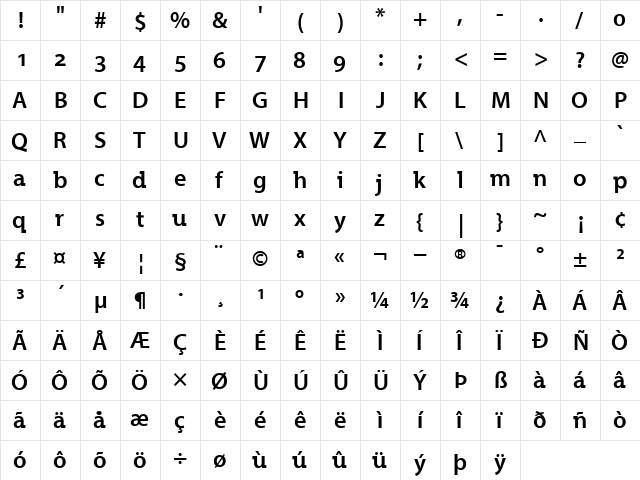
Grandesign Light Bold
Design Context for Grandesign Light Typeface
Grandesign Light offers clean, dependable letterforms without strong stylistic allegiance, making it a practical choice for designers who need flexibility. The heavy weight commands attention and anchors typographic hierarchies.